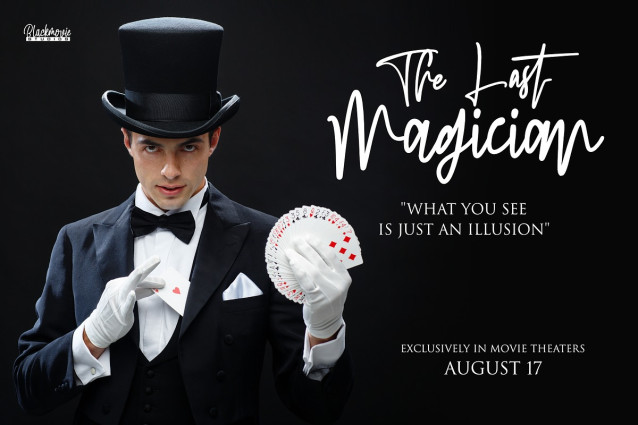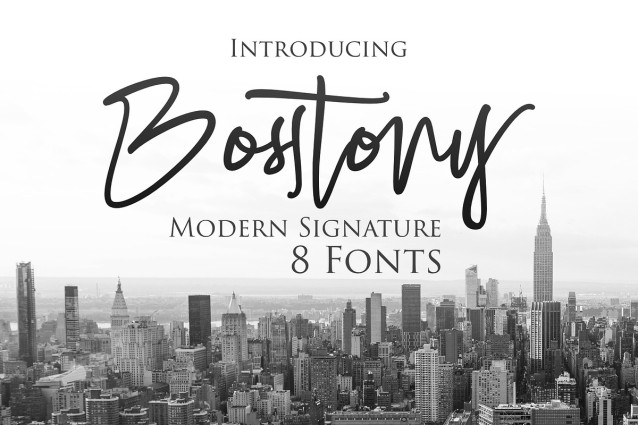
Bosstony Script Font
Bosstony Script Font is a font that is made as natural as possible but looks like classy handwriting, with 8 variations, ligatures, and alternative styles at the end. We designed this font to look elegant and classy so it can be used in a variety of design projects. but this font will become the flagship font for movie title writing projects and comes as a new face.